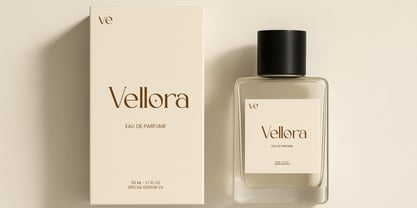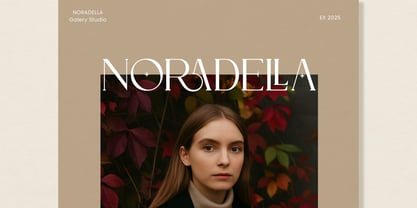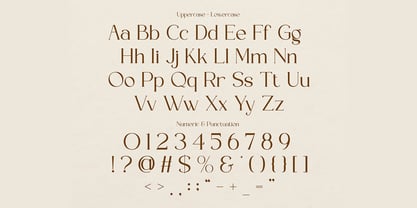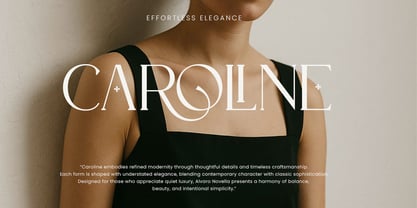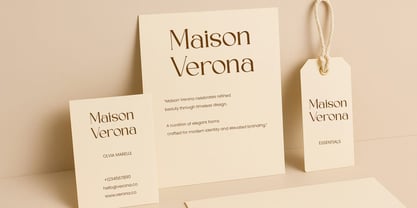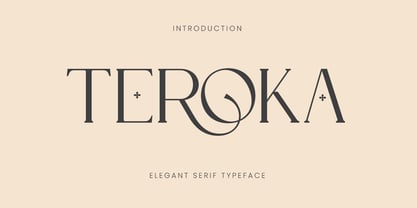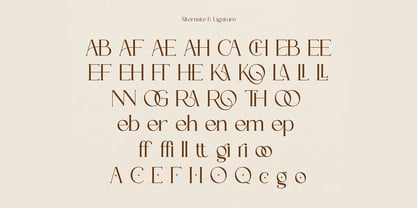
Teroka
by Qiubare Studio
The Teroka Font Family was designed by Michael Everson and published by Qiubare Studio. Teroka contains 1 styles. More about this family
TEROKA is an elegant editorial serif typeface featuring refined curves, high-contrast strokes, and distinctive ligatures. Designed for luxury branding, fashion, and architectural visuals, TEROKA brings a timeless yet modern character to headlines, logos, and premium design projects. What you have: - Standart Glyphs - Number & Punctuation - Ligature & Alternate - Works on PC & Mac - Simple installations - Accessible in Adobe Illustrator, Adobe Photoshop
Designers: Michael Everson
Foundry: Qiubare Studio